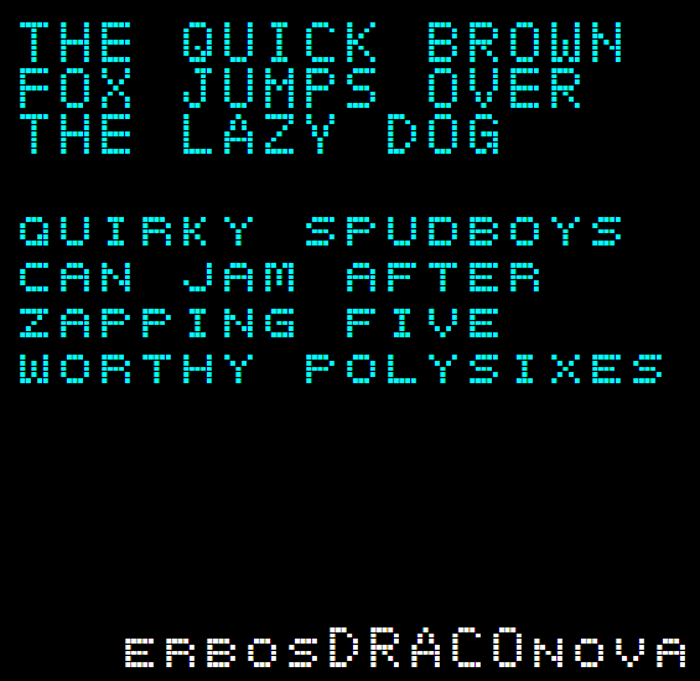
ErbosDraco Nova NBP Font
ErbosDraco Nova Open NBP Regular Style
A near-total redesign of Erbos Draco Monospaced with smallcaps. Still monospaced though.
For a more traditional scoreboard look try Erbos Draco Monospaced!
Good font, better than the other